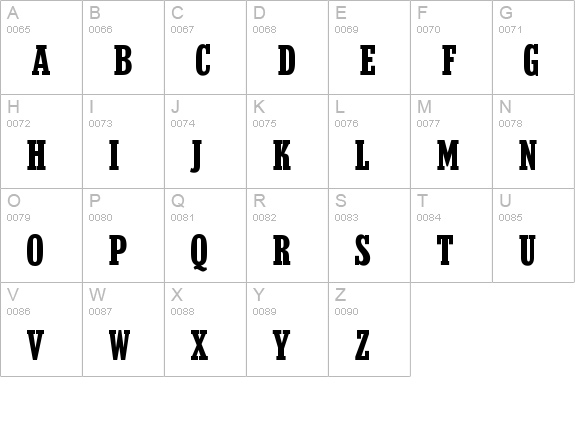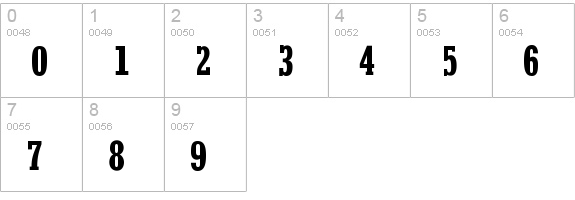
QuarterBold Font Details
QuarterBold is a visually striking and bold font that is sure to grab attention and make a statement. With its strong and commanding presence, this font exudes confidence and adds a touch of modernity to any design project. The characters are meticulously crafted with sharp edges and clean lines, giving the font a sleek and stylish appearance. But what sets QuarterBold apart from other fonts is that it is not only visually impressive, but also freely available to download. Yes, you read that right - you can get your hands on this incredible font at absolutely no cost. FontsMarket.com offers QuarterBold as a free download, allowing designers, creatives, and enthusiasts alike to access this amazing font without breaking the bank. Whether you're working on a logo, a poster, a website, or any other design project, QuarterBold is the perfect choice to make a bold statement. Its versatility allows it to be used in various contexts, from professional and corporate designs to more creative and artistic endeavors. Don't miss out on this opportunity to add QuarterBold to your font collection. Download it for free at FontsMarket.com and unleash your creativity with this powerful and eye-catching font.